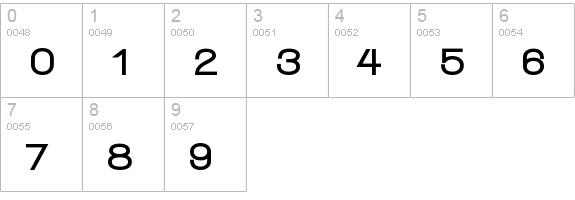
Walkway Black is a maximum-weight, dramatic variant in the Walkway typeface family \xE2\x80\x94 well suited to maximum-impact headlines, posters, and packaging.
Walkway Black is a bold and captivating font that effortlessly commands attention. Its strong and sturdy letterforms exude confidence and make a powerful impact in any design project. With its sleek and modern aesthetic, Walkway Black is perfect for conveying a sense of authority and professionalism. This versatile font is suitable for a wide range of applications, from headlines and titles to logos and branding materials. Its clean and sharp lines create a striking visual presence, ensuring that your message is delivered with both style and clarity. In addition to its impressive design qualities, Walkway Black also offers the added benefit of being freely available to download at FontsMarket.com. This means that you can easily access this exceptional font without any cost, allowing you to enhance your projects with a premium typeface that won't break the bank. Whether you're working on a print design, a website, or any other creative endeavor, Walkway Black is sure to elevate your work to new heights. Its bold and impactful nature will captivate your audience, leaving a lasting impression that resonates long after they've encountered your content. So why settle for ordinary when you can have extraordinary? Download Walkway Black for free at FontsMarket.com and unlock the potential to create eye-catching and memorable designs that truly stand out from the crowd.